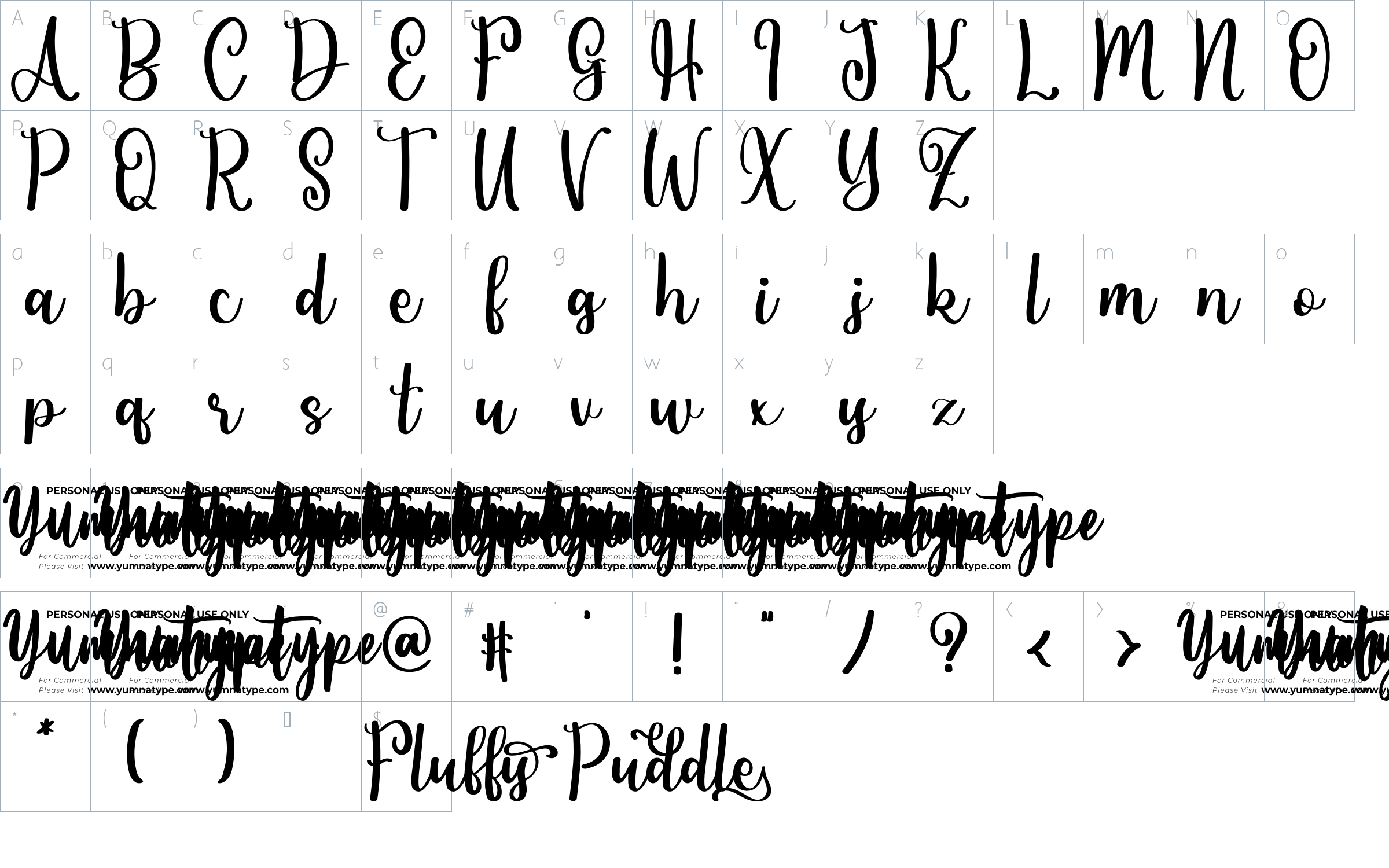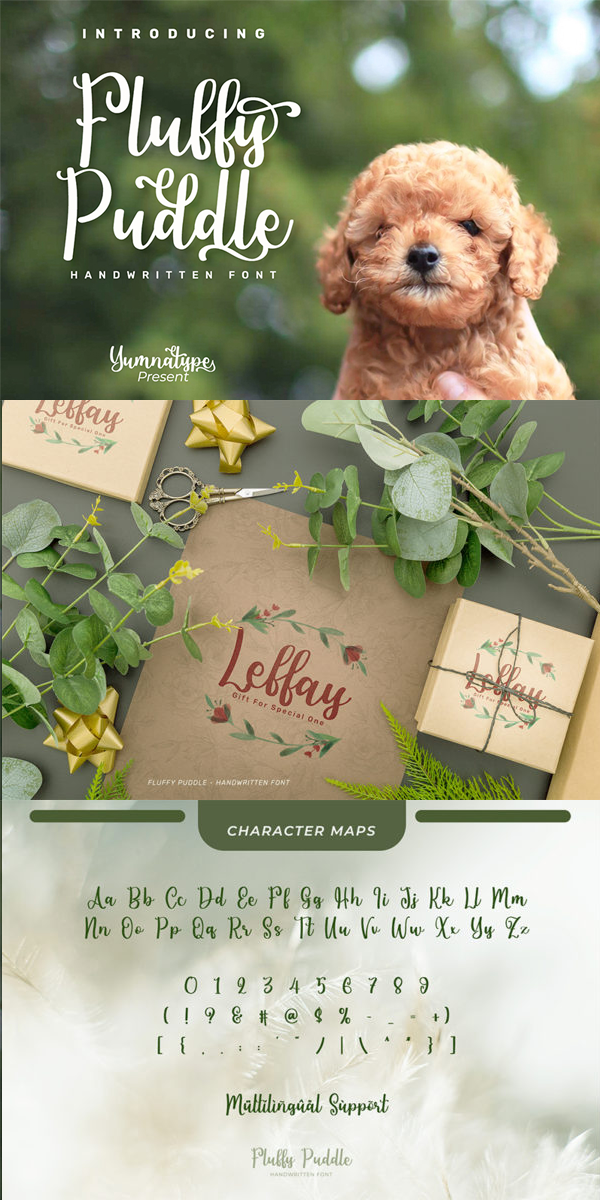
Fluffy Puddle Font
About Fluffy Puddle
Fluffy Puddle is a beautiful handwritten font. Made for any professional project branding. It is the best for logos, branding and quotes. Every letter has a unique and beautiful touch.